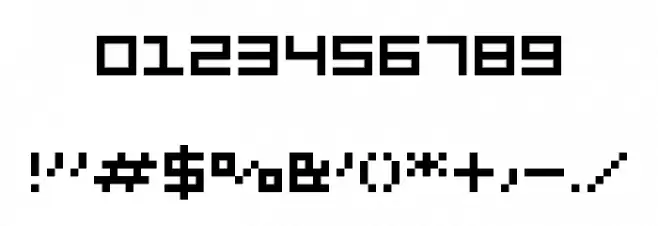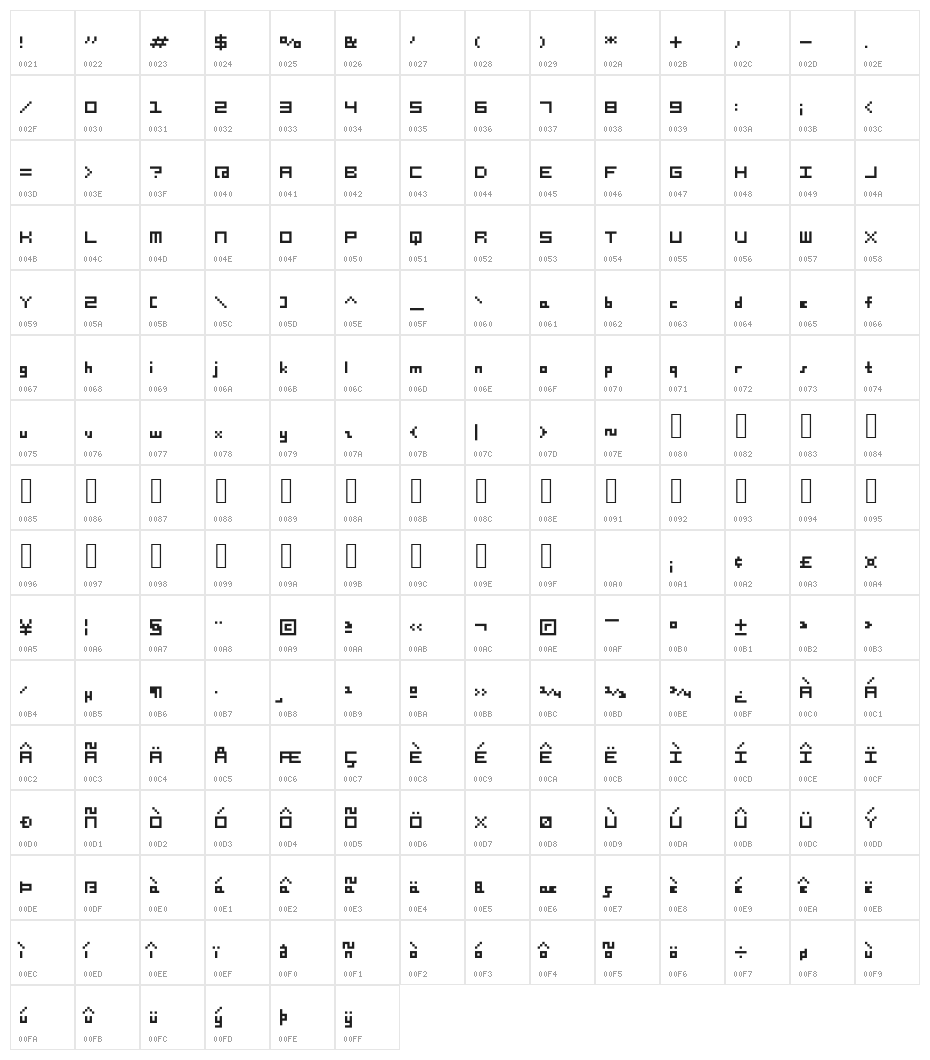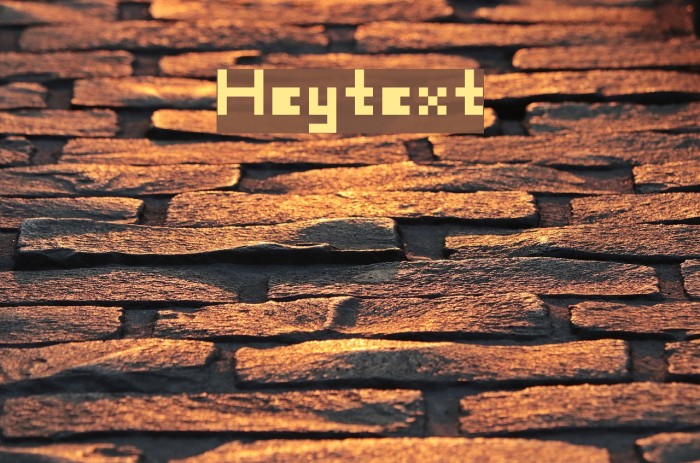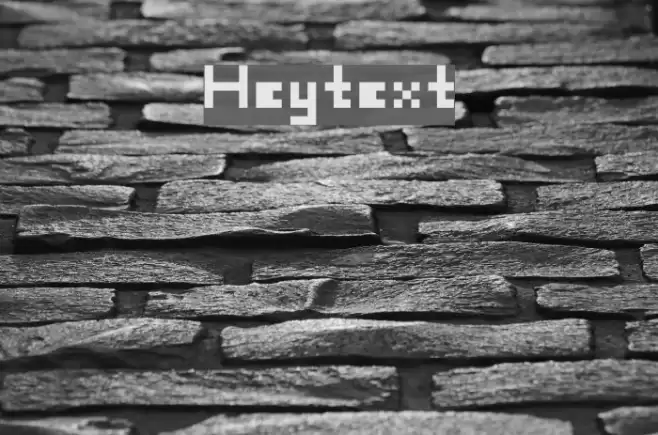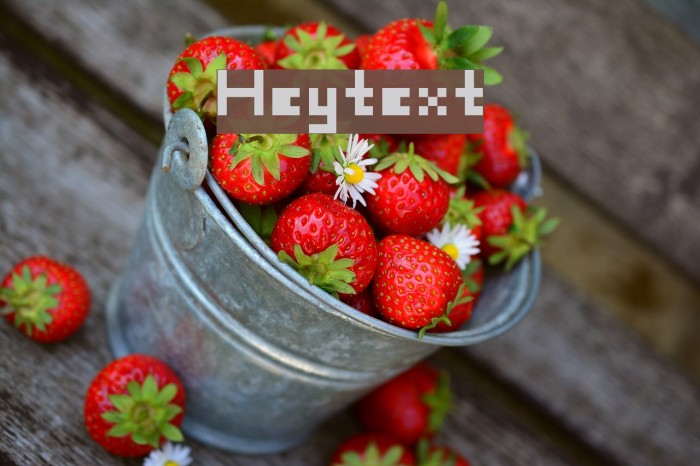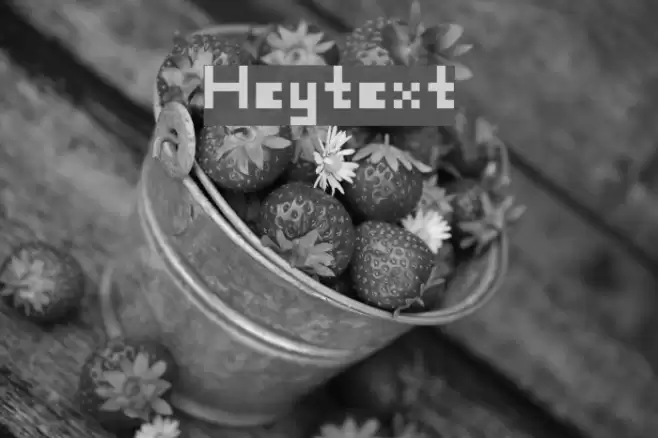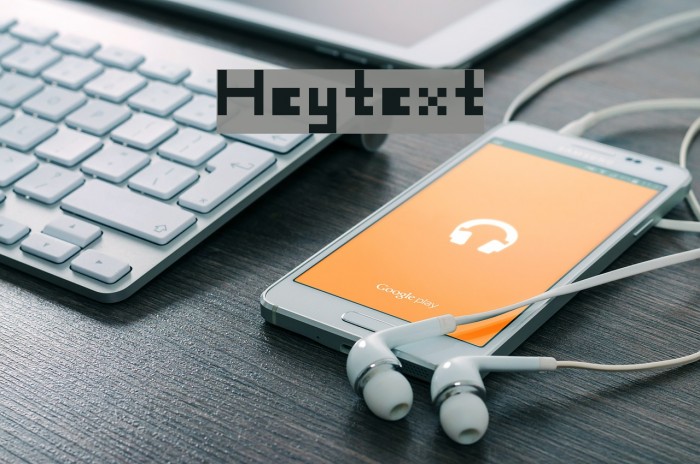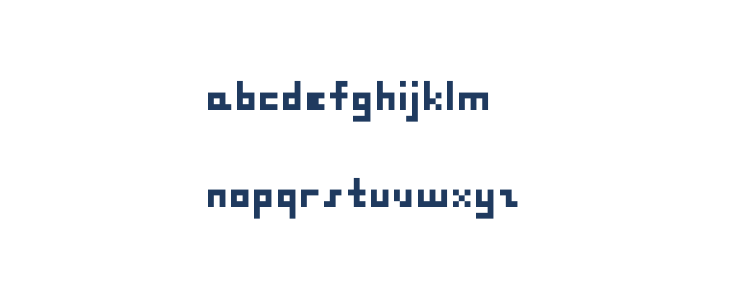
Heytext Font
Heytext Description
This font features a pixelated, blocky design reminiscent of early digital or video game aesthetics. Each character is constructed with a grid-like precision, giving it a distinctly retro and technological feel. The uppercase letters are bold and uniform, while the lowercase letters maintain the same pixelated style with slight variations in height and width. Numbers and special characters are also designed in this pixelated manner, ensuring consistency across all glyphs. The font's geometric nature makes it highly legible at various sizes, though it is best suited for larger displays where its unique style can be appreciated.
| Use Case | Headlines, Logos, Display text |
| Proposed Projects | Ideal for video game design, retro-themed posters, digital art projects, and any creative work that requires a nostalgic or tech-inspired look. |